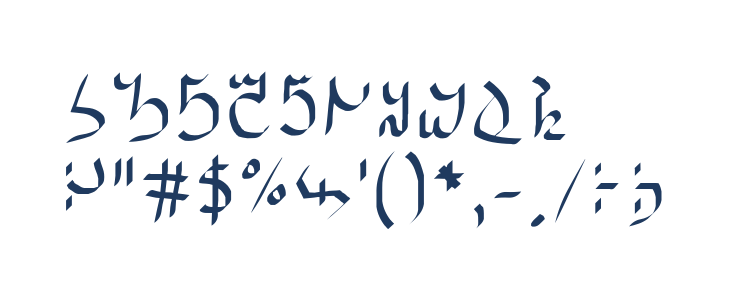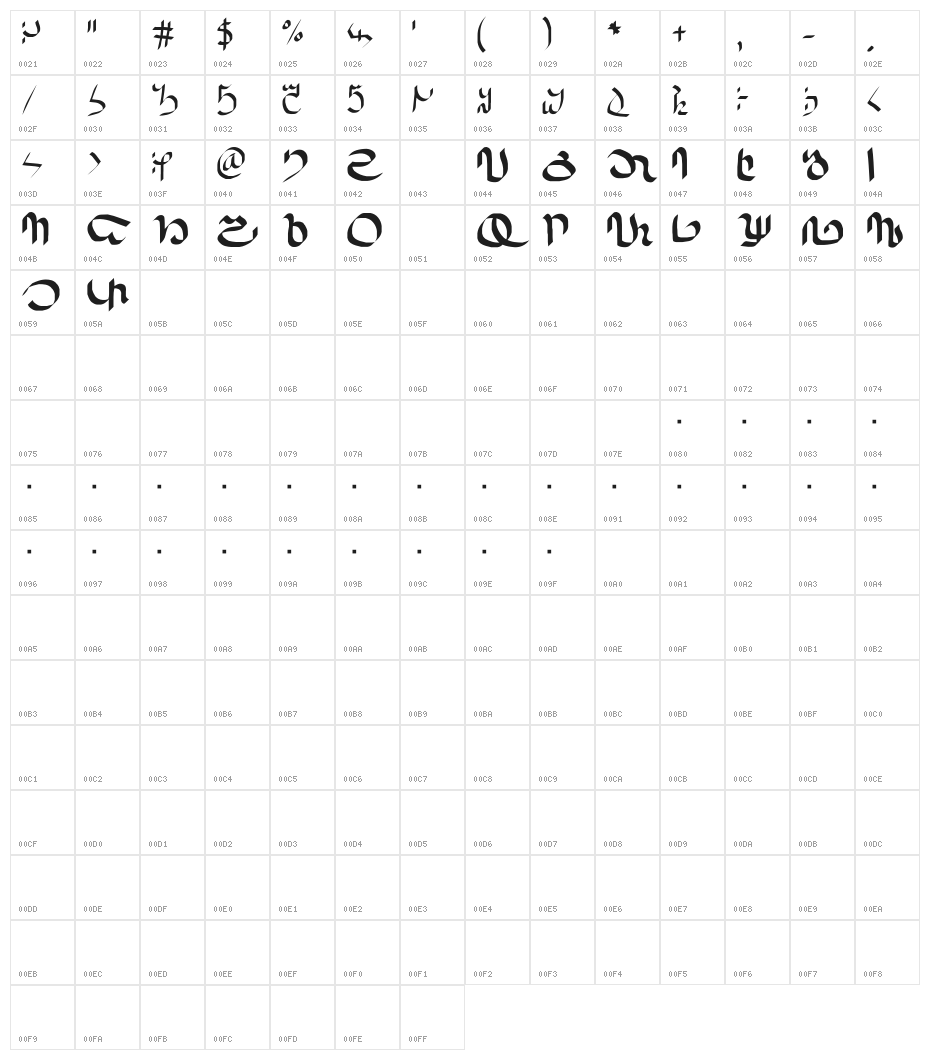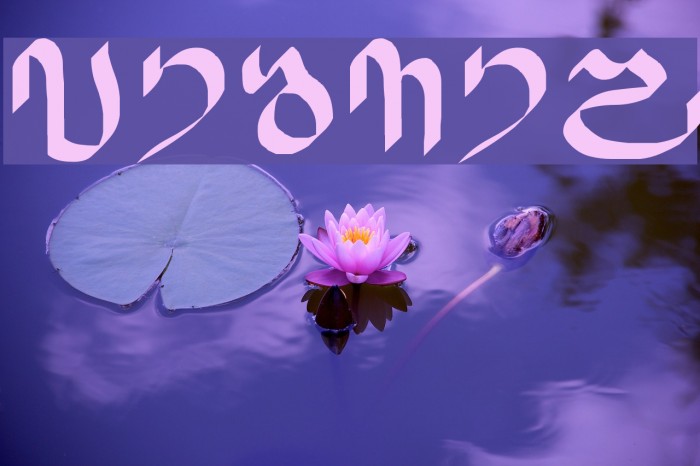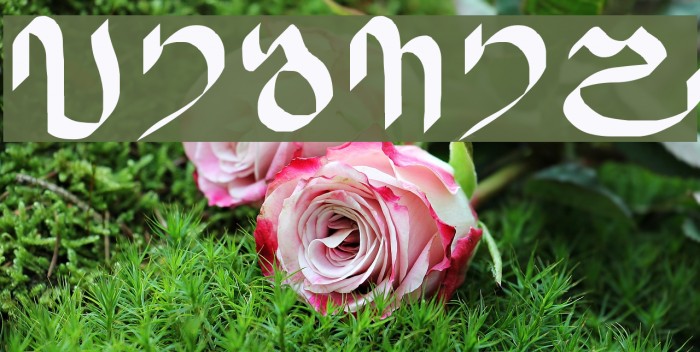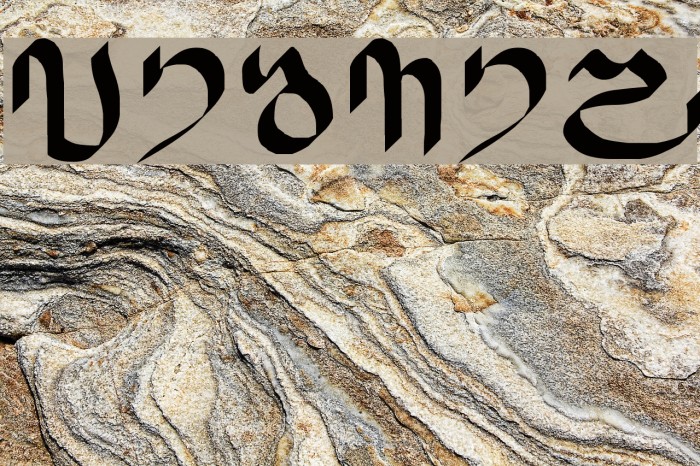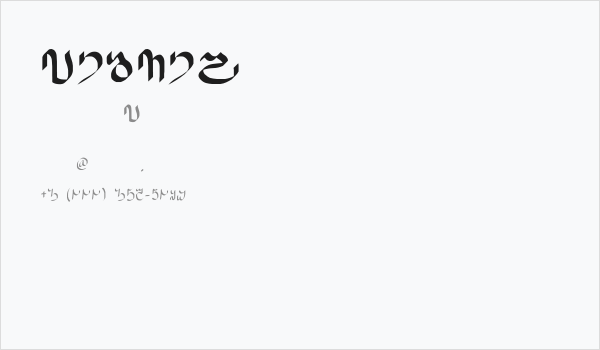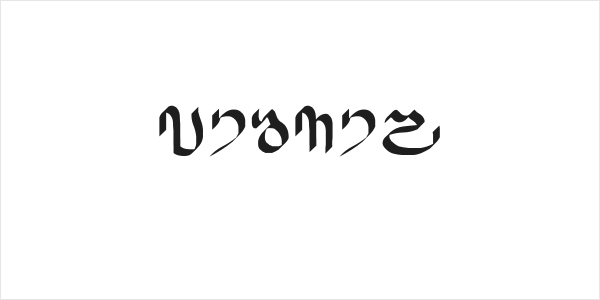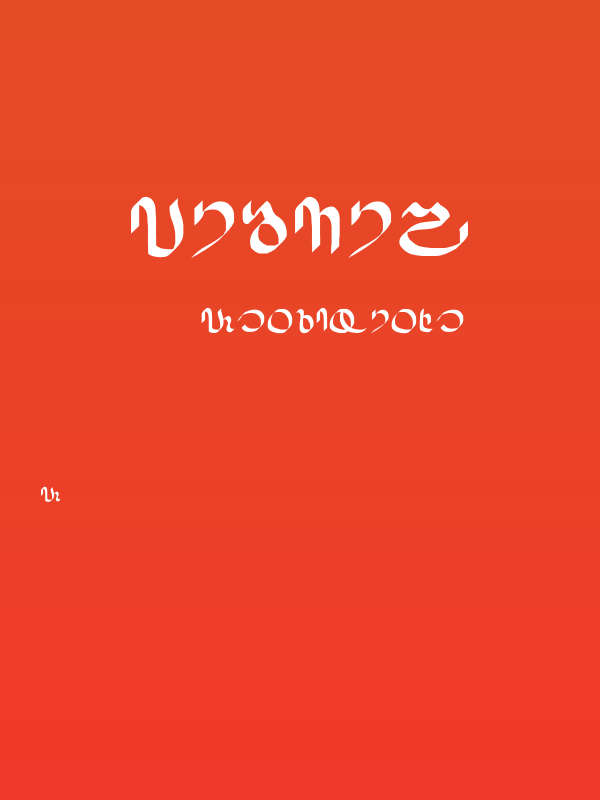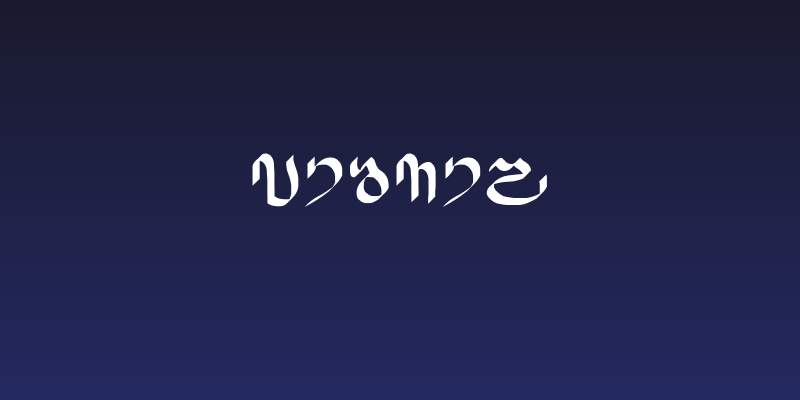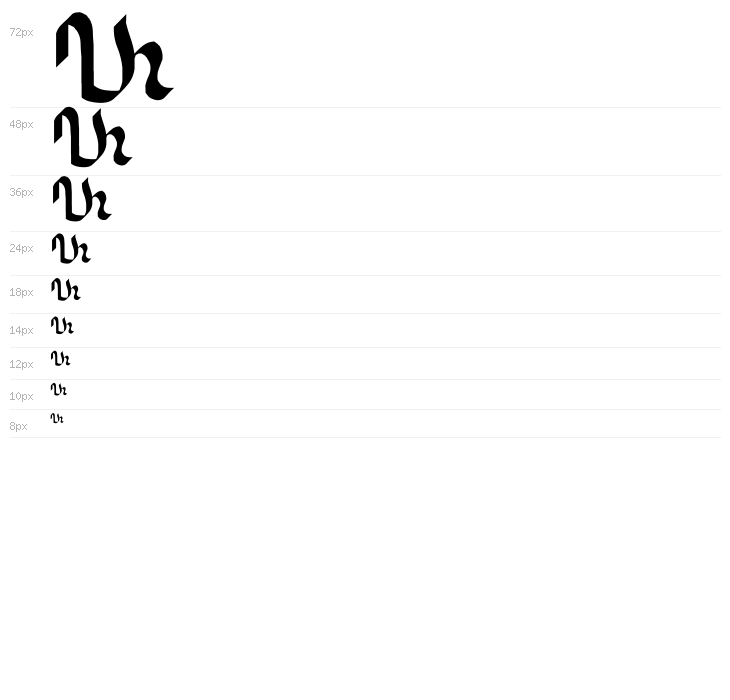
DAIKAN Font
DAIKAN Description
This font features a unique and artistic style with a calligraphic influence, characterized by its flowing, curved lines and intricate details. The strokes are bold and expressive, giving each character a dynamic and lively appearance. The design incorporates a mix of thick and thin strokes, creating a high contrast that enhances its visual impact. The overall aesthetic is both modern and decorative, making it suitable for creative and artistic projects. The characters are well-spaced, ensuring readability while maintaining an elegant and sophisticated look.
| Proposed Projects | Ideal for branding, logos, invitations, and artistic posters. |